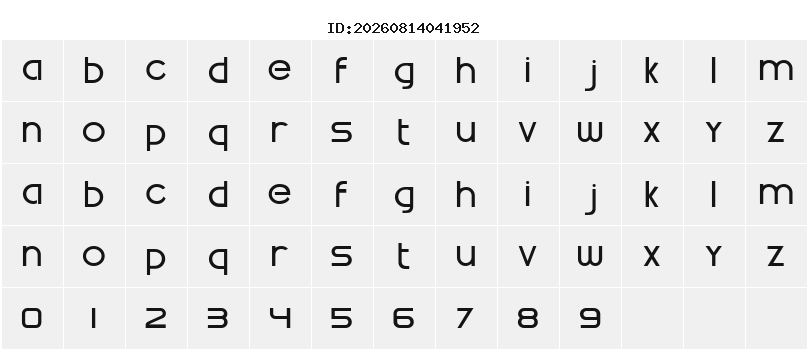
Swatch it Preview
About Swatch it.ttf
Swatch it.ttf is a modern, elegant sans-serif font designed for ultimate readability and visual harmony. Perfect for branding, headlines, web design, and print materials.